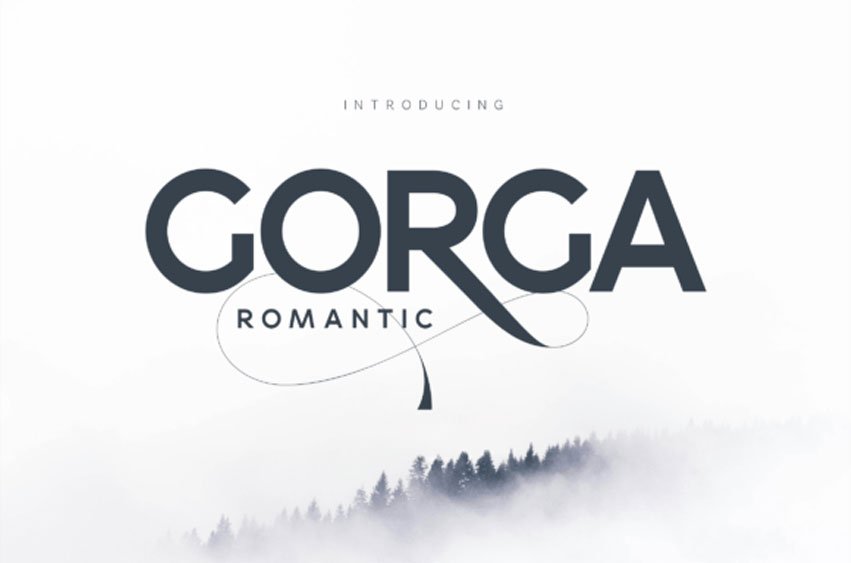
Gorga Romantic Font is a clean, modern sans serif typeface that expertly blends geometric stability with elegant, fluid flourishes. While its core structure is built on bold, wide-proportioned characters and crisp edges, it features a striking decorative element: an elongated, calligraphic tail on the uppercase “R” that sweeps beneath the surrounding letters in a delicate, thin-line loop.
This unique contrast between the heavy sans serif stems and the airy, romantic swash gives the font a contemporary yet sophisticated personality. It is an ideal choice for fashion branding, modern wedding invitations, lifestyle magazine headers, and high-end cosmetic packaging.